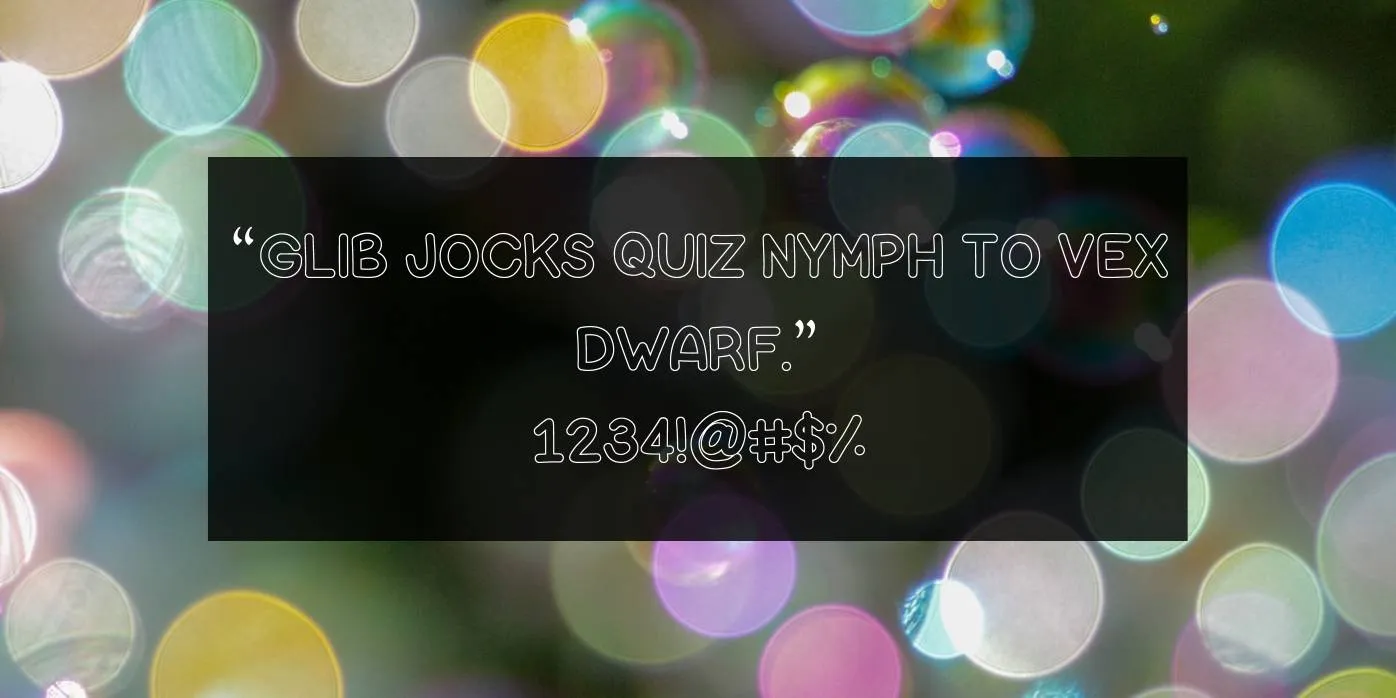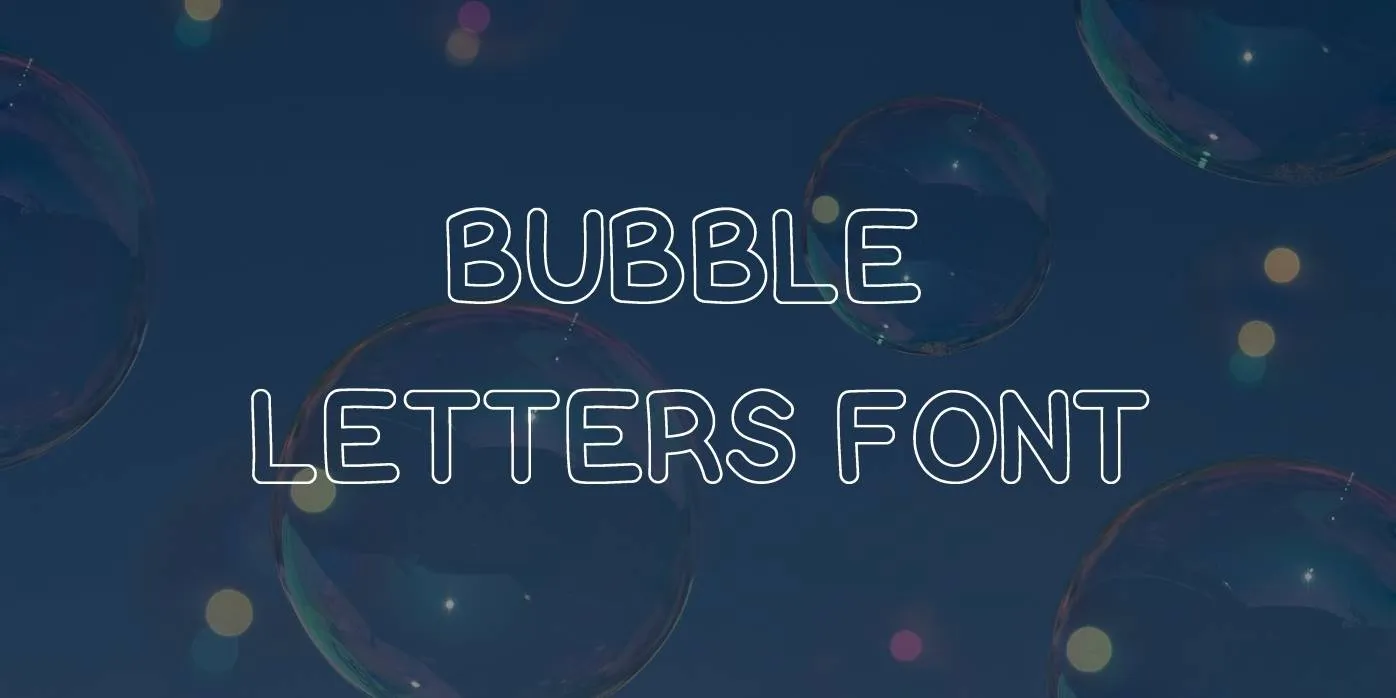
Bubble Letters Font
In this post, we introduce a stunning typeface that is known by the name Bubble Letters Font. This typeface belongs to the fancy font family. This typeface was developed by Wepfont. This typeface has a unique and elegant look.
It is perfect for making headlines, logos, and posters. This tremendous font has a very stylish design. The letters are round and bubbly. They have a soft, curved look.  It is also ideal for posters and other creative projects.
You can also use its copy and paste function for various designs. For more advanced uses, you need to use bubble bobble font by making a combination with this family. This typeface is available in two styles: regular and italic. Each style contains 326 characters.
The Bubble Letters Font supports Latin, Cyrillic, and Greek languages. It also includes some punctuation marks and symbols. You can also use its text generator tool for all of the graphic-type designs.